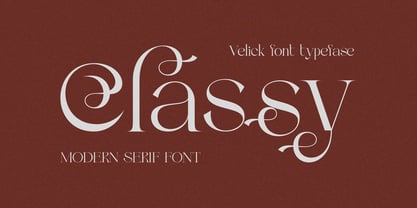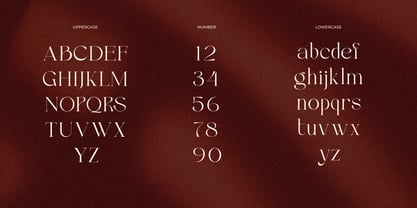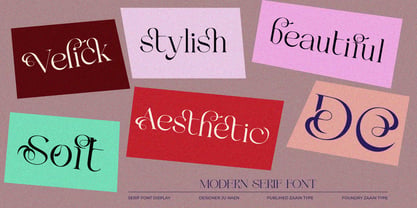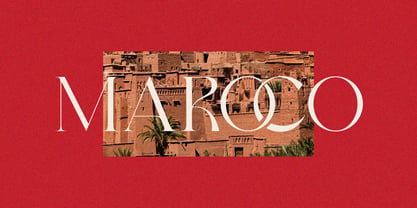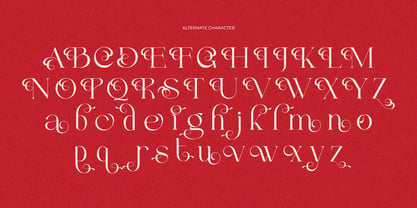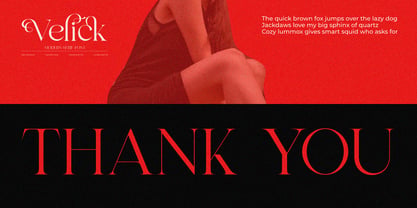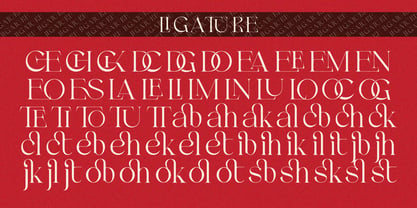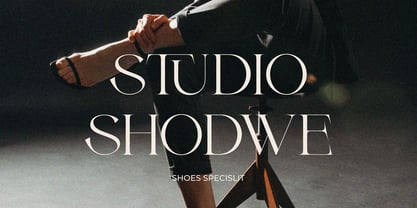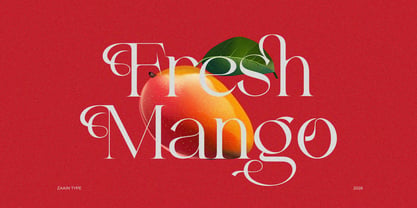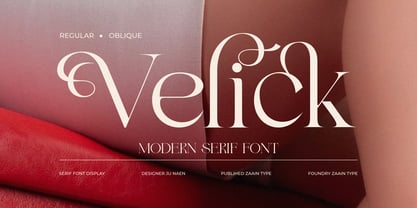
Velick
by Zaain Type
The Velick Font Family was designed by Ju Naen and published by Zaain Type. Velick contains 2 styles and family package options. More about this family
Velick is a modern serif font that combines timeless elegance with a contemporary touch. Featuring refined serifs, balanced proportions, and sophisticated letterforms, Velick creates a luxurious and professional impression for any design project.
Perfect for branding, fashion, editorial, logos, magazines, invitations, and premium packaging, Velick brings a stylish and distinctive character to your creative work. Its elegant details and versatile appearance make it an excellent choice for designers looking to achieve a high-end and sophisticated aesthetic
Designers: Ju Naen
Foundry: Zaain Type